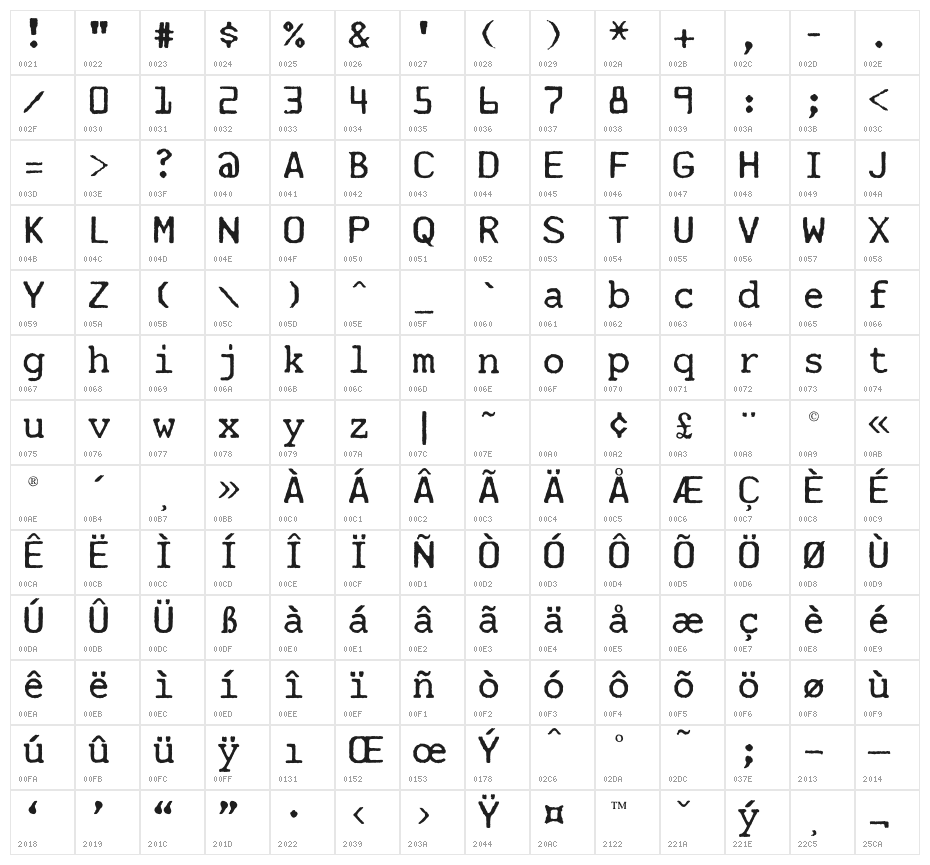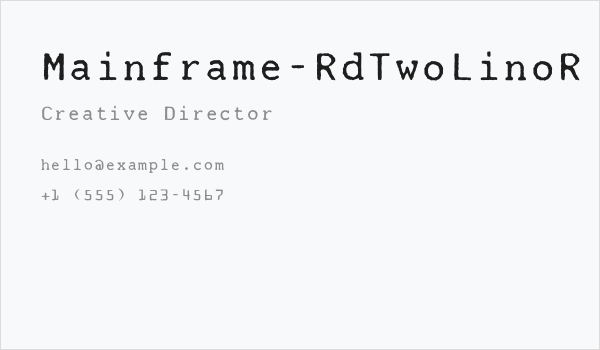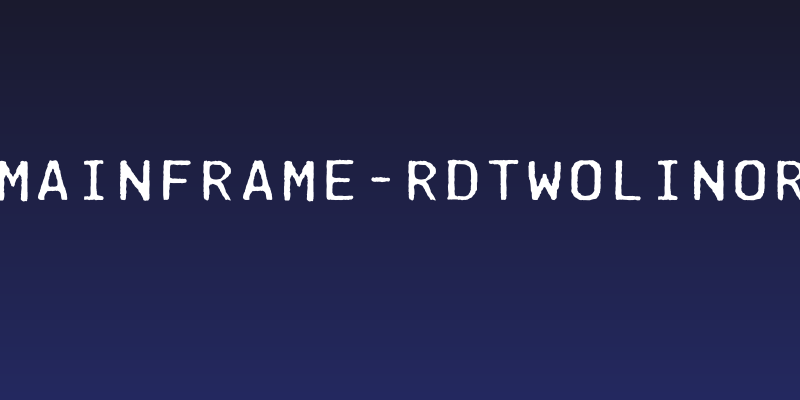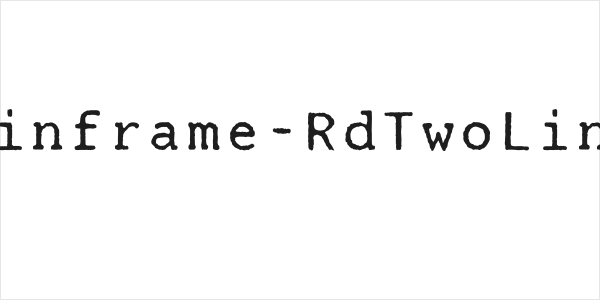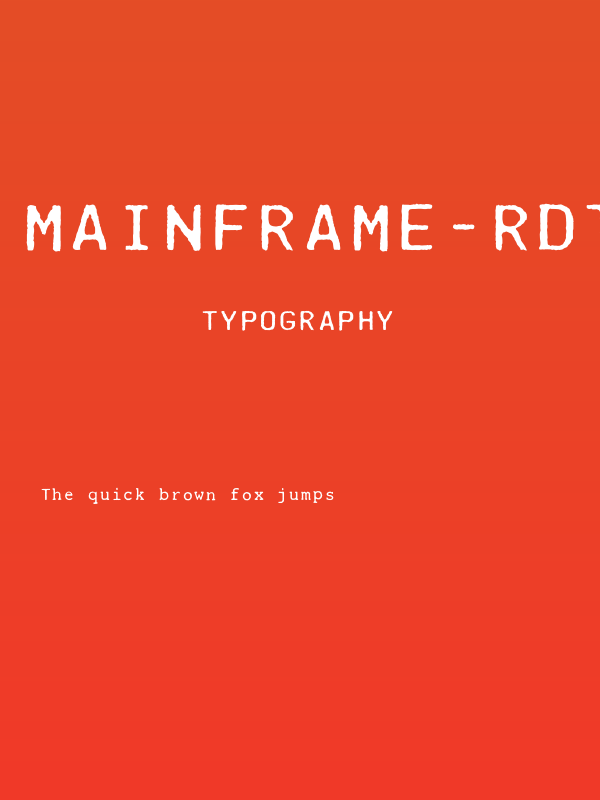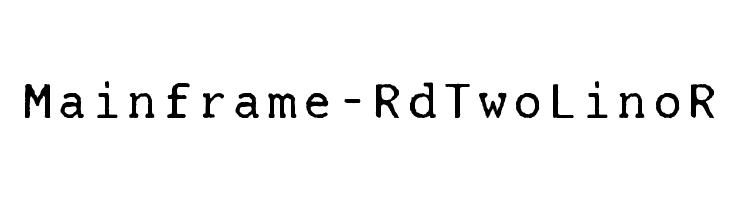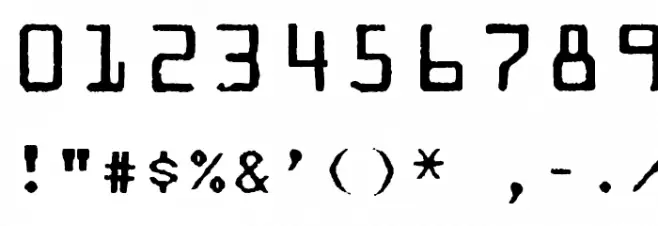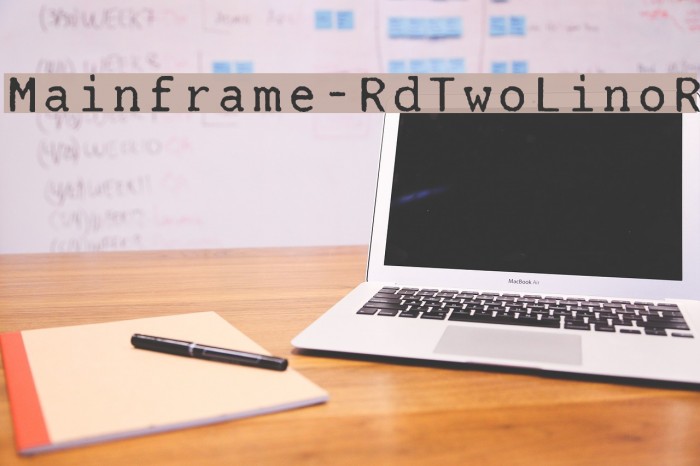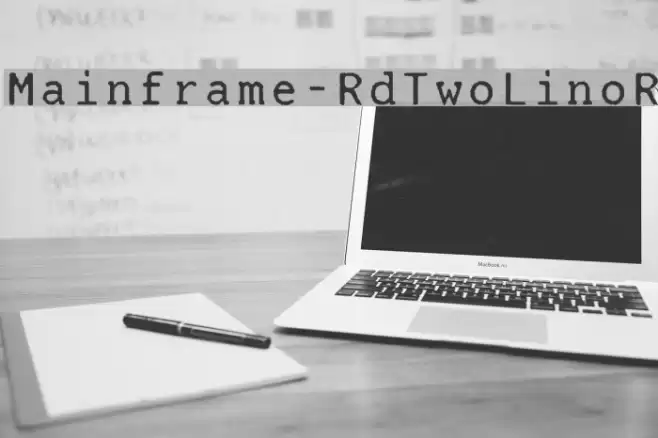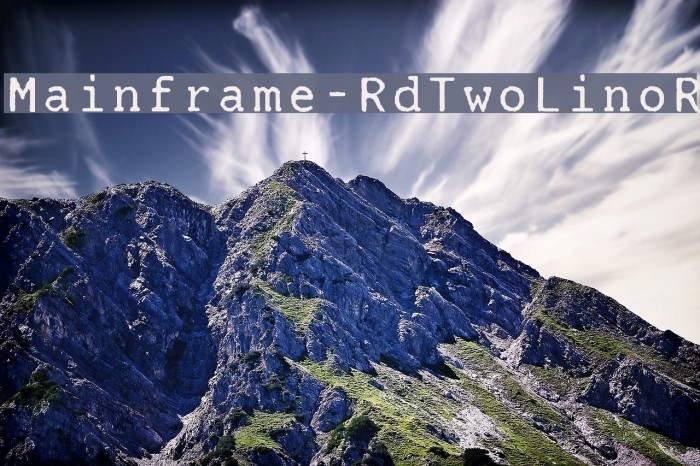
Mainframe-RdTwoLinoR Font
Mainframe-RdTwoLinoR Description
This font features a distinctive, vintage typewriter style with a slightly distressed appearance, giving it a nostalgic and mechanical feel. The characters are monospaced, providing a uniform and orderly look. Uppercase and lowercase letters maintain a consistent height, while numbers and special characters are clearly defined with a rugged texture. The font's design evokes a sense of old-school technology and manual typewriting, making it ideal for projects that aim to capture a retro or industrial aesthetic.
| Overall Style | Vintage |
| Use Case | Logos, Headlines, Posters |
| Proposed Projects | Ideal for retro-themed designs, typewriter art, industrial branding, and vintage posters. |